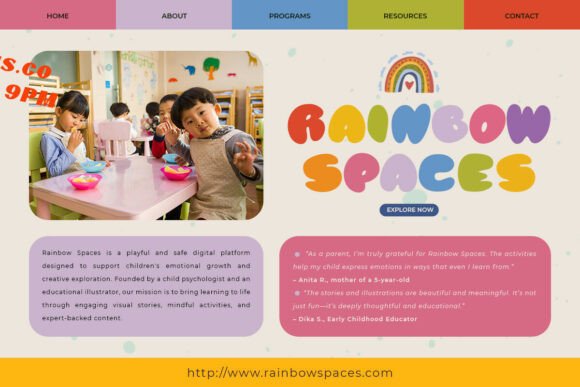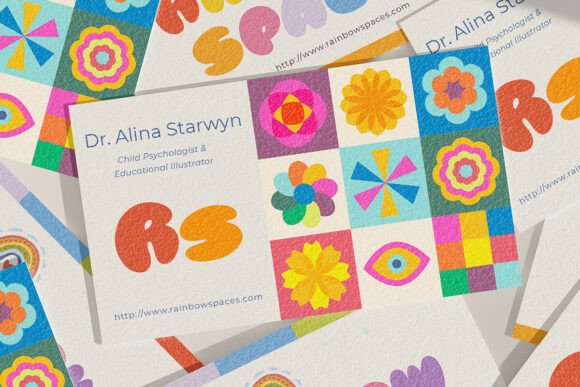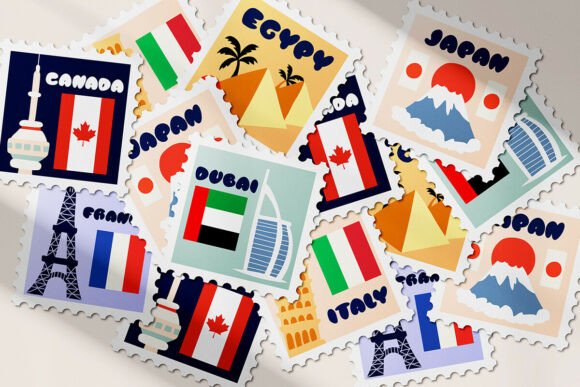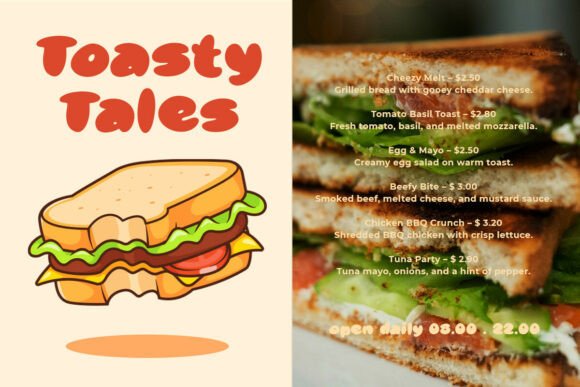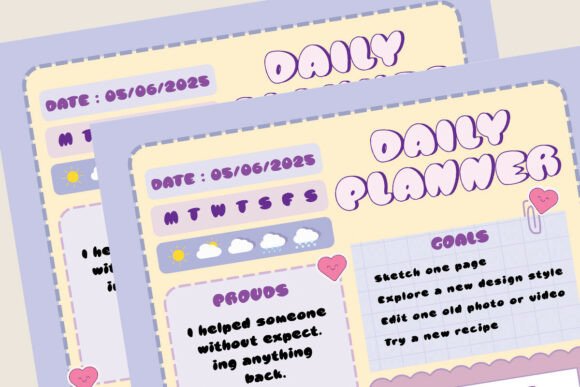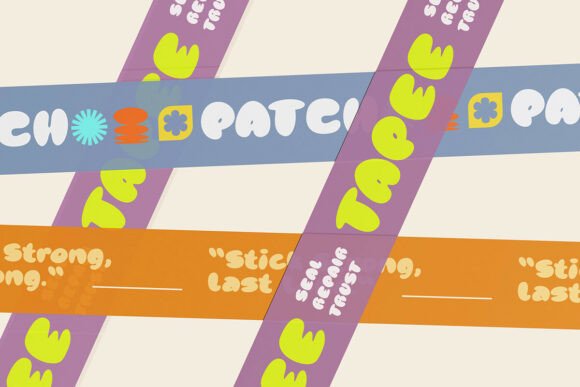
Introduction to Kareo Star Font
Kareo Star, a fun and chubby display font designed to bring joy and character to your creative projects.
This rounded and geometric font is perfect for playful branding, kids-themed designs, colorful headlines, logos, posters, and more Whether youโre working on a baby shower invitation, educational content, or a kawaii-themed craft project, Kareo Star will help your design shine like a star.